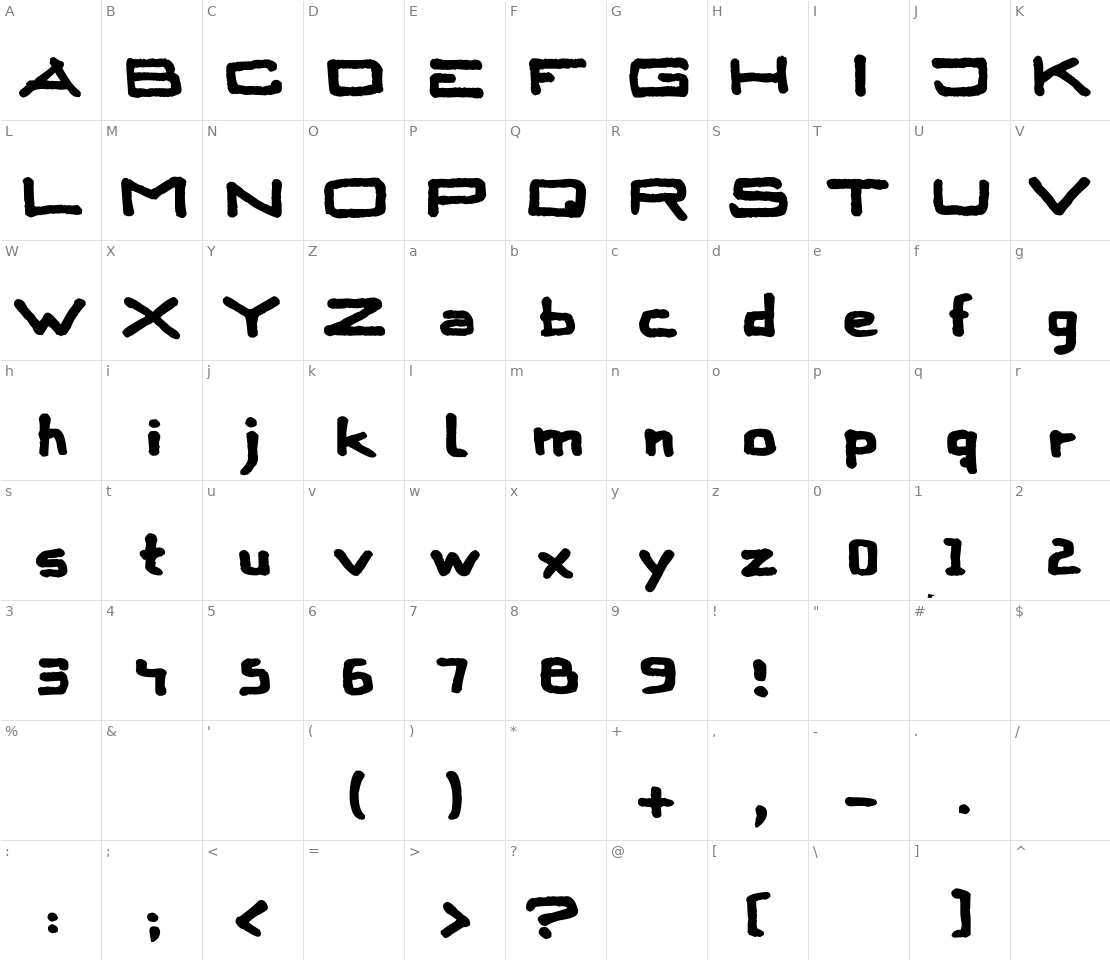
Skitser Square
Skitser Square is a bold, heavy display face from FontPanda with rough, irregular edges that give every letter a hand-drawn, almost scratched-out quality. The squared-off shapes keep things structured, but the grungy texture and visible imperfections make it feel like it was carved in a hurry with a dull blade. Built for posters, headlines, and short bursts of text where you want weight and rawness in equal measure.